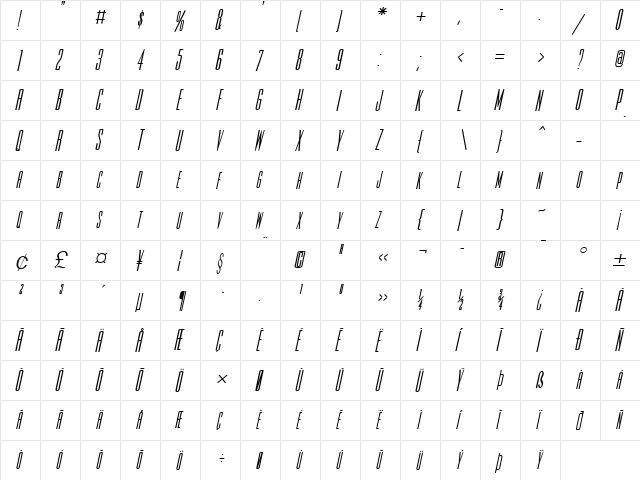
Slim-Jim Bold Italic
Design Context for Slim-Jim Typeface
Slim-Jim offers clean, dependable letterforms without strong stylistic allegiance, making it a practical choice for designers who need flexibility. The dynamic lean of this cut emphasises speed and emphasis in any layout. Its bold stroke weight gives it real presence on the page.
Pro Tip: Try Slim-Jim for annotation and caption copy alongside an upright companion — the contrast in angle creates a dynamic but ordered typographic system.